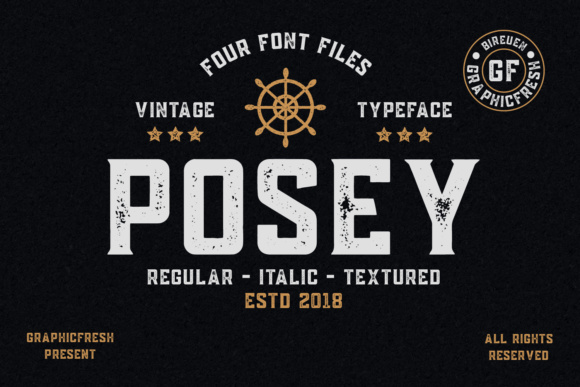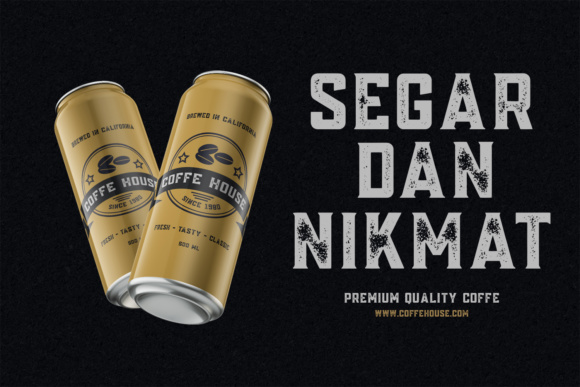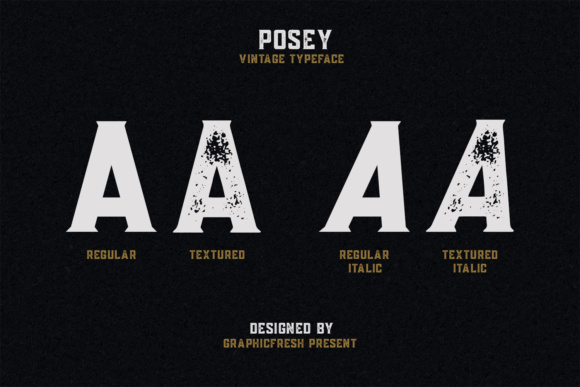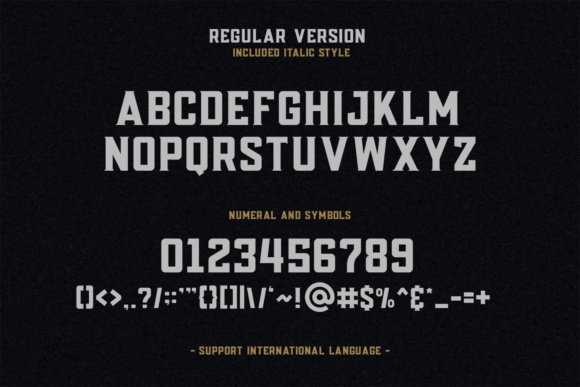
Posey Font: A Distressed Vintage Serif for Logo Design & Branding
About the Posey Font
From logos to headlines, the Posey Font is the perfect choice for making a lasting impression. The Posey is a vintage family including a regular and textured version and their italics.
It’s perfect for logos, name cards, magazine layouts, invitations, headers, or even large-scale artwork.
Posey’s vintage charm makes it ideal for projects requiring a touch of nostalgic elegance. It excels in headlines, logos, and short-form text where its textured detail adds visual interest. Consider it for branding materials targeting a sophisticated, perhaps slightly whimsical audience, such as boutiques, cafes, or artisan products. Avoid using Posey for large blocks of body text; its decorative nature can hinder readability in extended passages.
Its overall personality is sophisticated yet approachable, lending itself to brands that value quality craftsmanship and a touch of vintage flair.